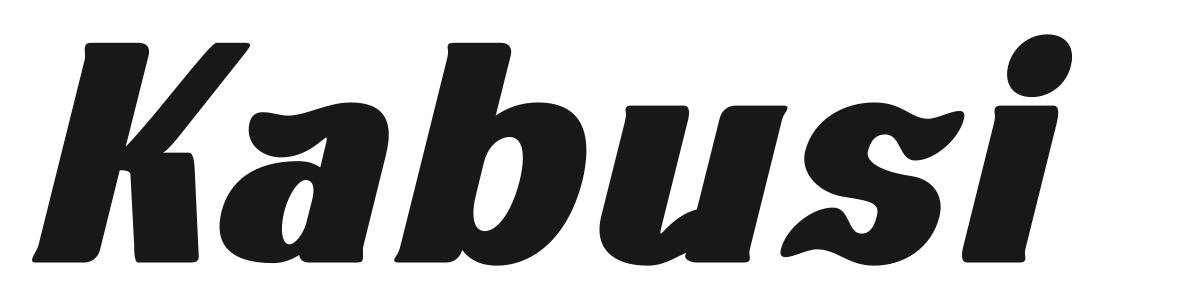
Kabusi
Kabusi is a heavy italic display sans with bold, wide proportions and a distinctly retro personality drawn from 1970s typography. The thick rounded terminals and confident forward slant give it a funky, energetic character that reads loud at large sizes. It suits posters, record covers, brand identities, and anywhere a design needs bold retro attitude.